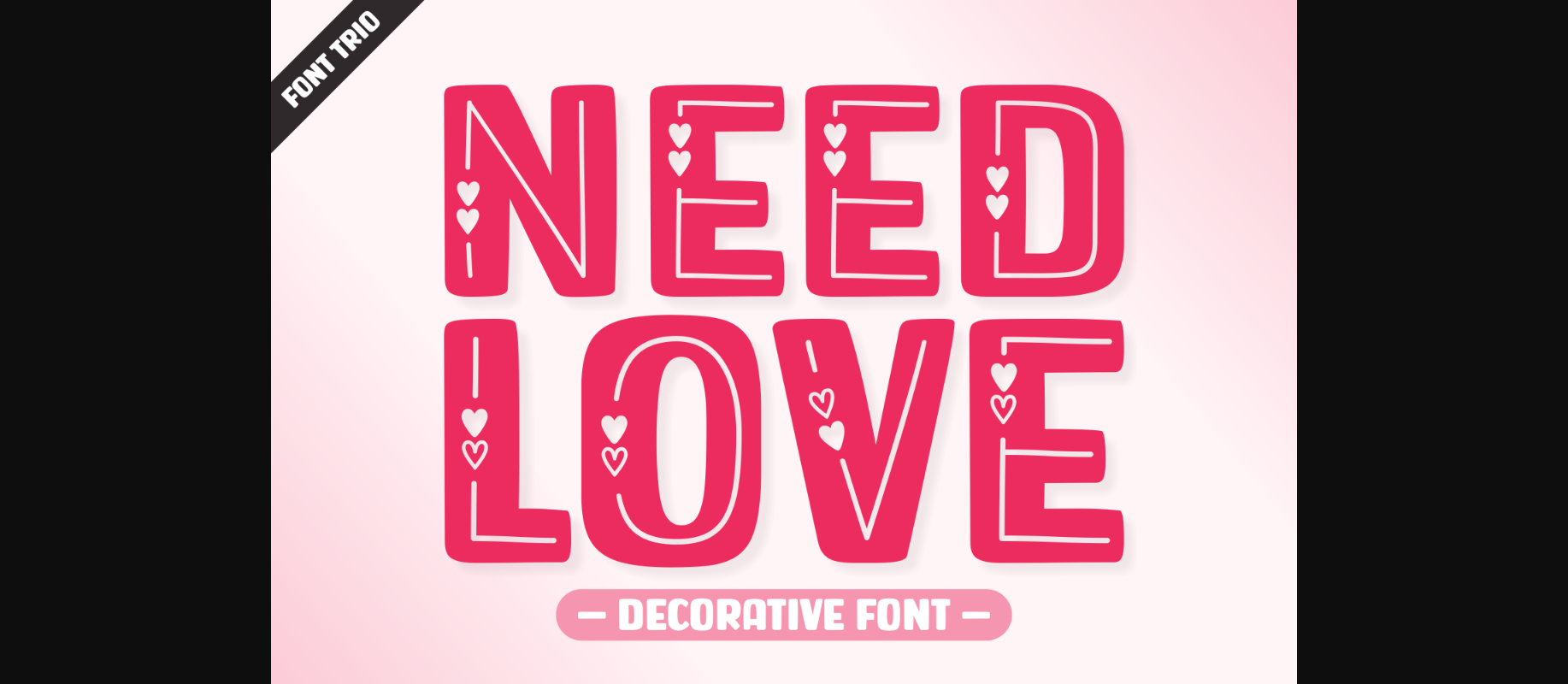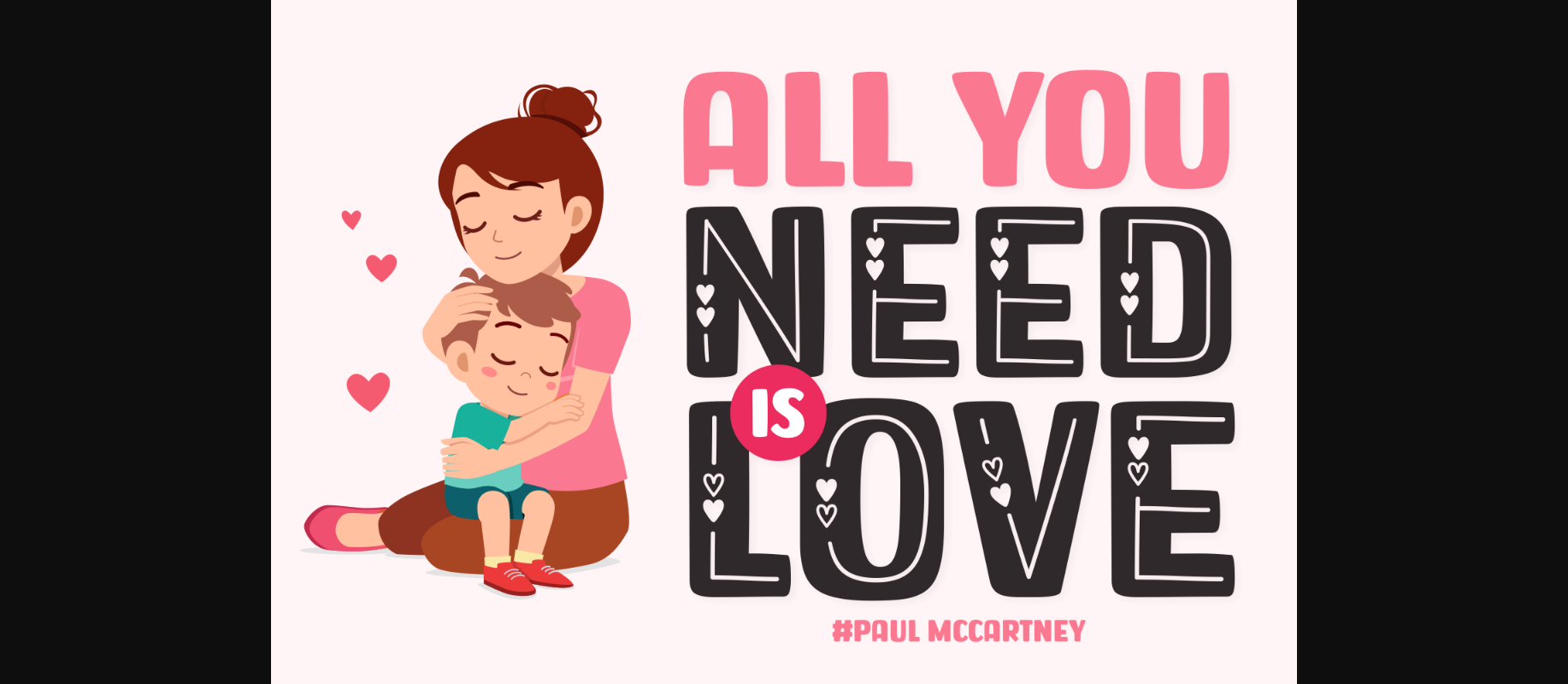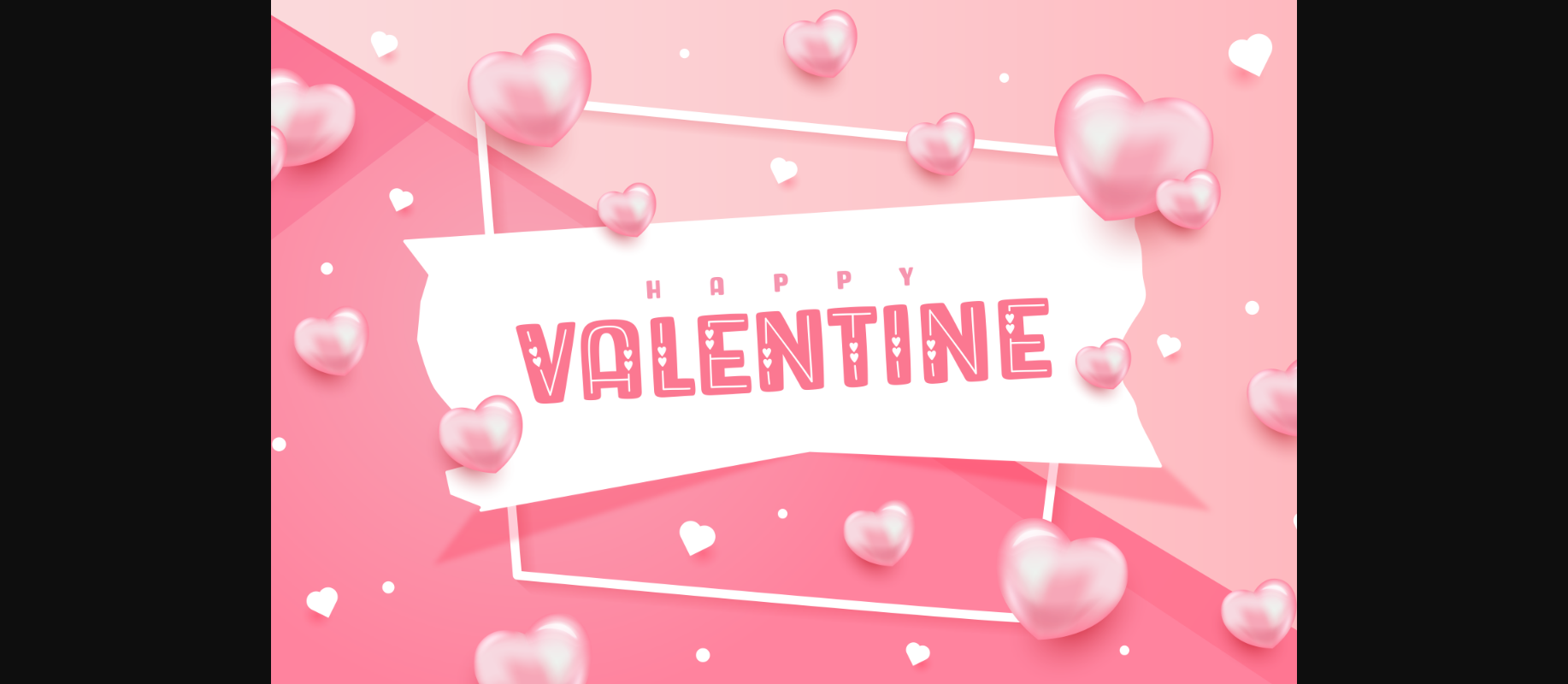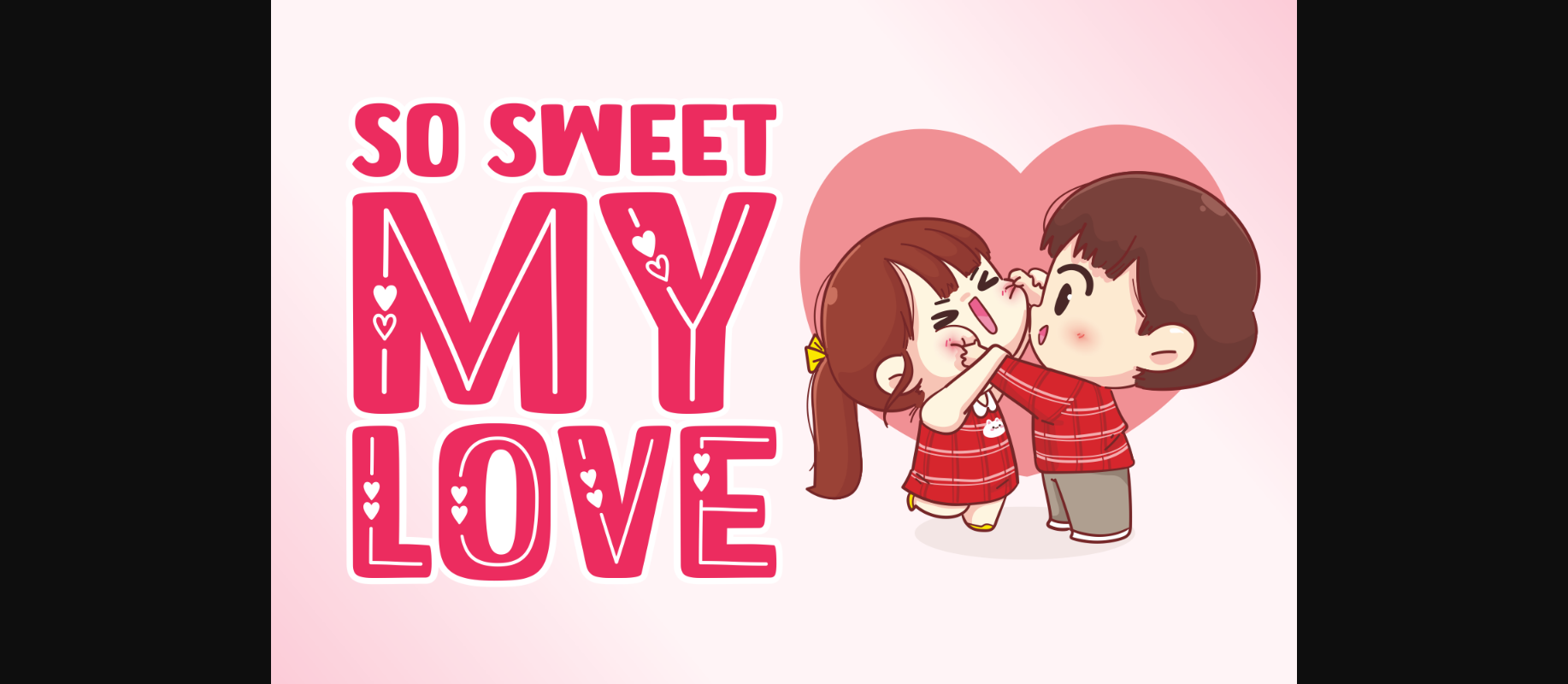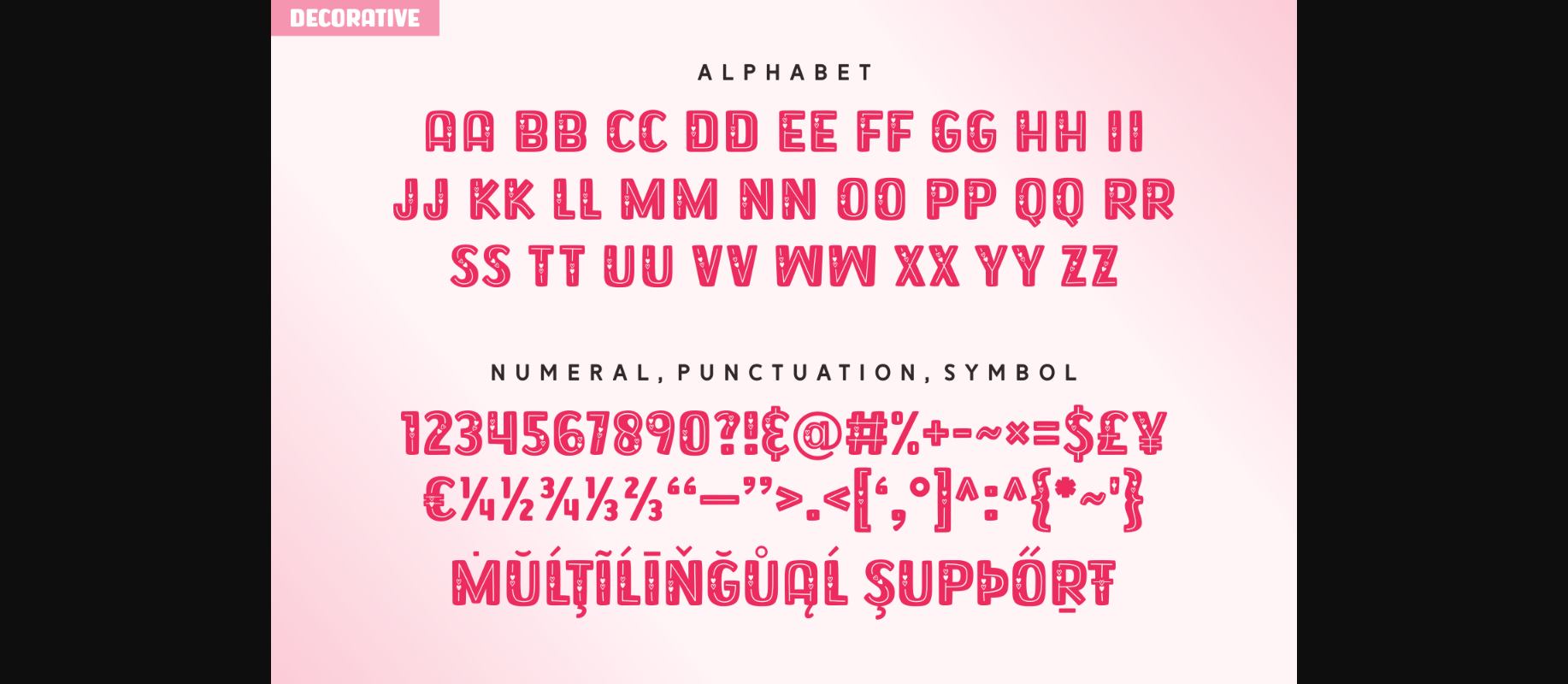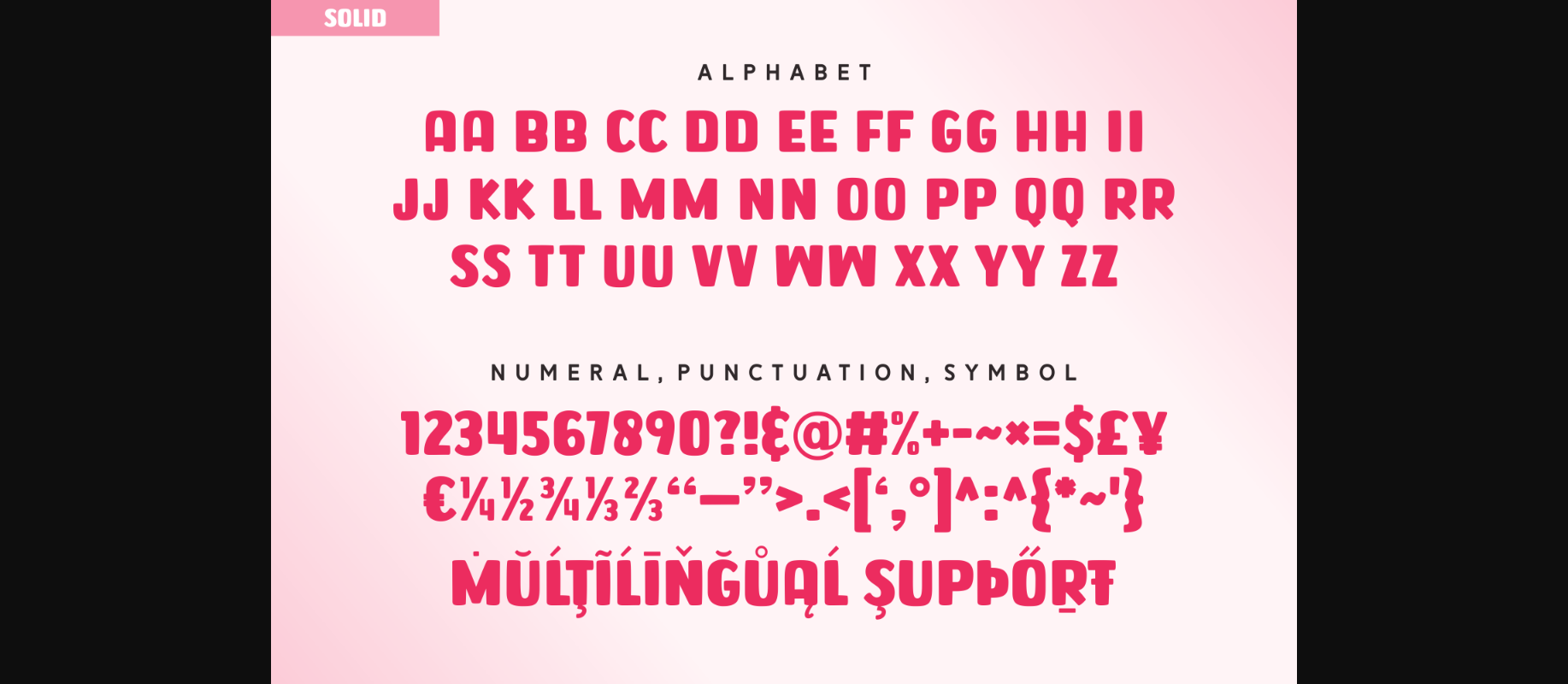
About Need Love Font
Need Love is a cute and eye-catching decorative font. The simplicity and kindness of the font will add to each and every design idea a sense of loveliness.